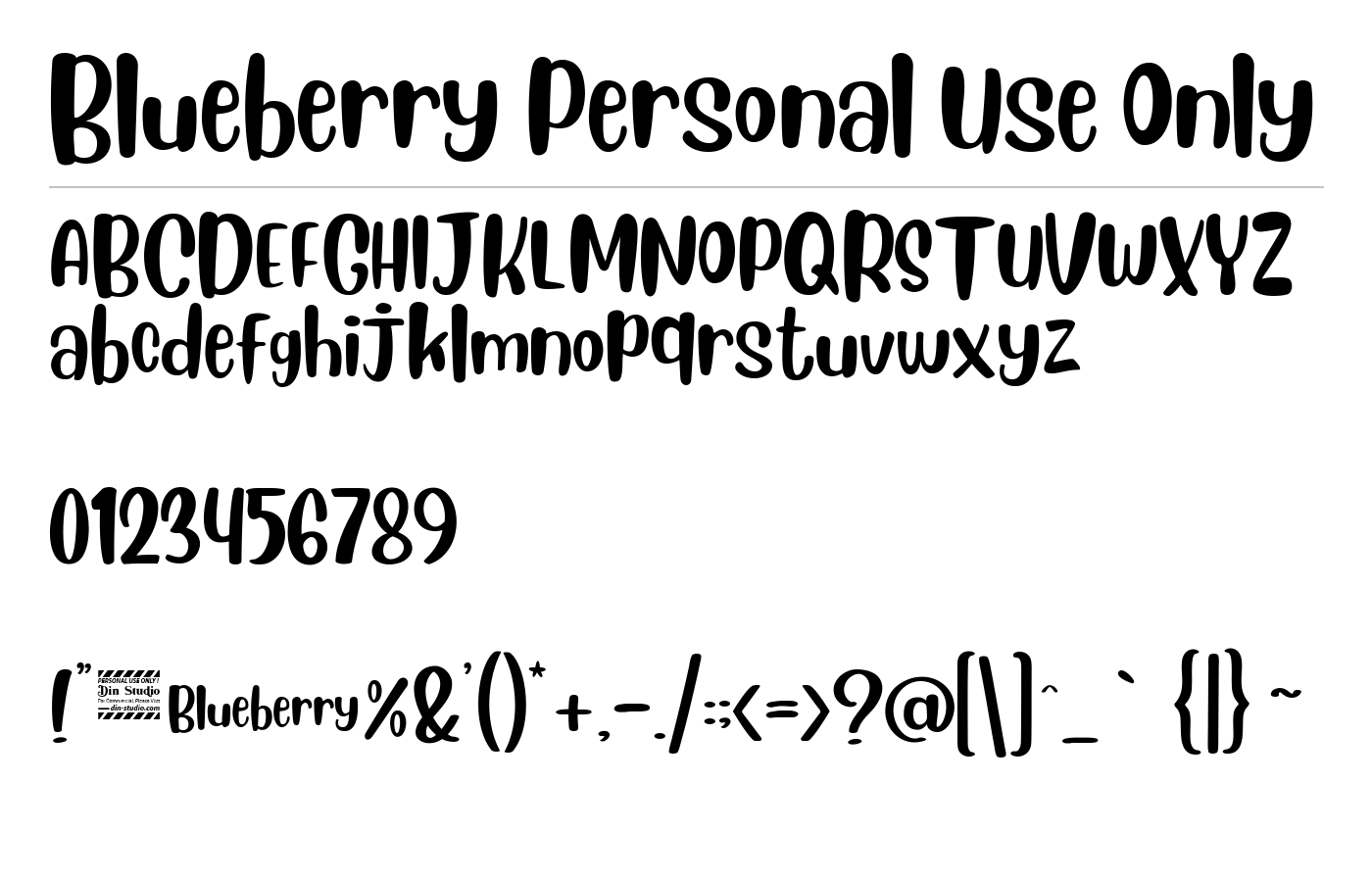
Blueberry Personal Use Only is a playful and friendly sans serif font with a hand-drawn, casual feel. Its rounded, moderately bold strokes and tall x-height create an inviting, approachable look, perfect for informal or creative projects. This font works well for logos, packaging, and headlines where a warm, cheerful personality is desired.
Blueberry Personal Use Only Font
About Blueberry Personal Use Only Font
| Font family | Blueberry Personal Use Only Font |